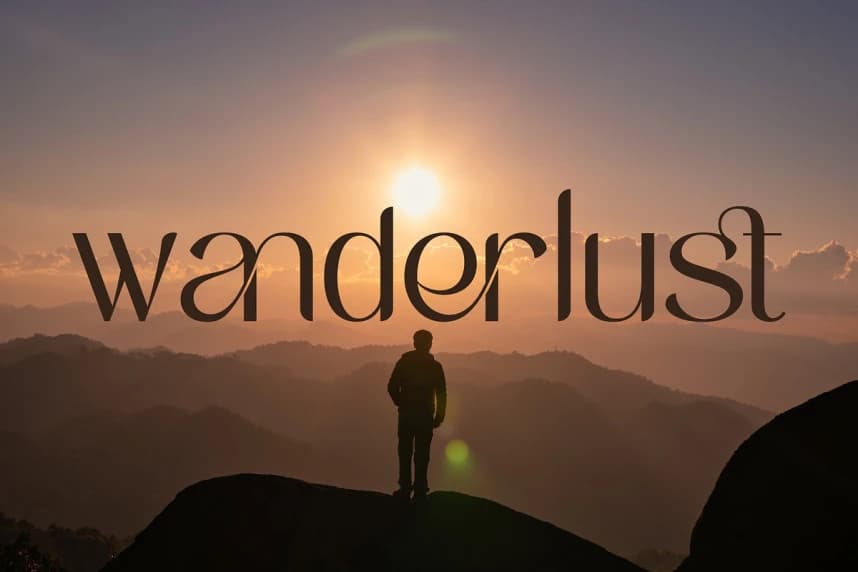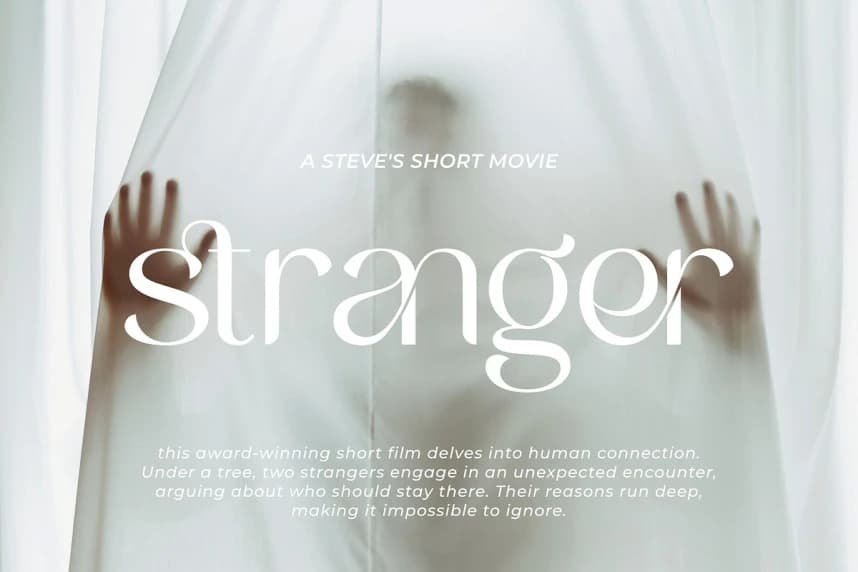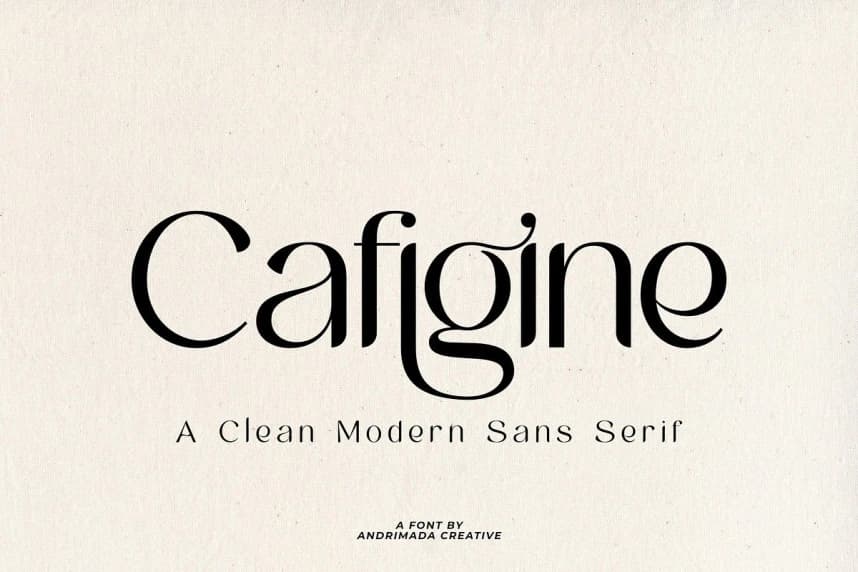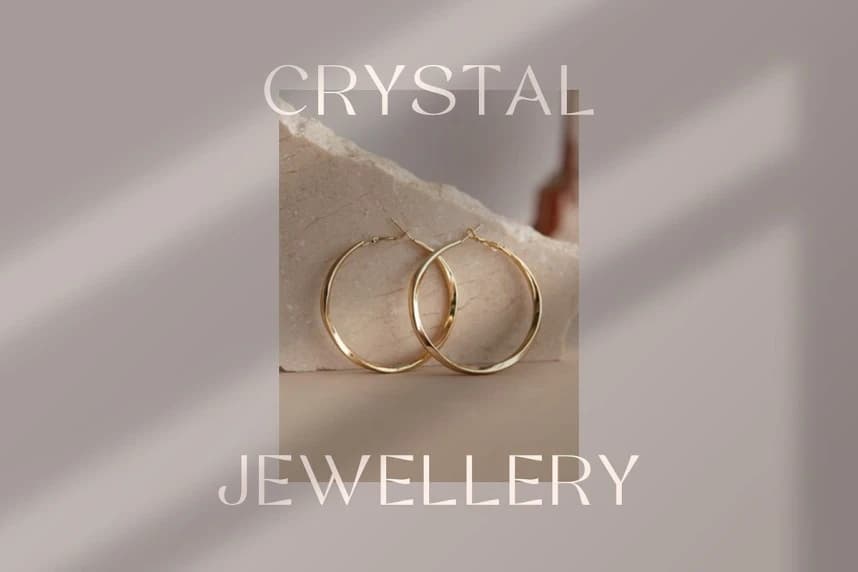
Cafigine Font
Cafigine Font, a modern sans serif font that is the epitome of contemporary elegance. With its beautiful and smooth characters, Cafigine is a versatile typeface that is perfect for an array of design needs, from wedding designs to logotypes